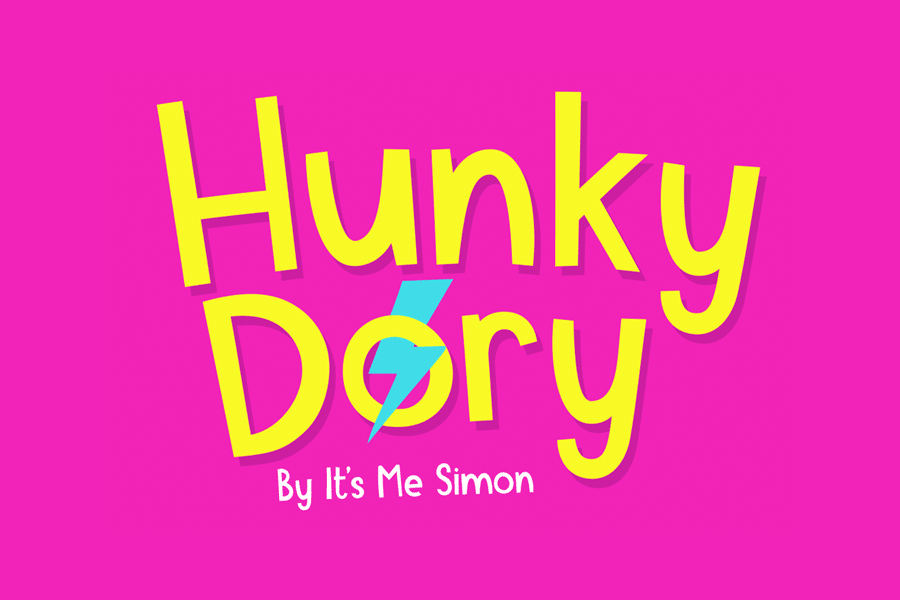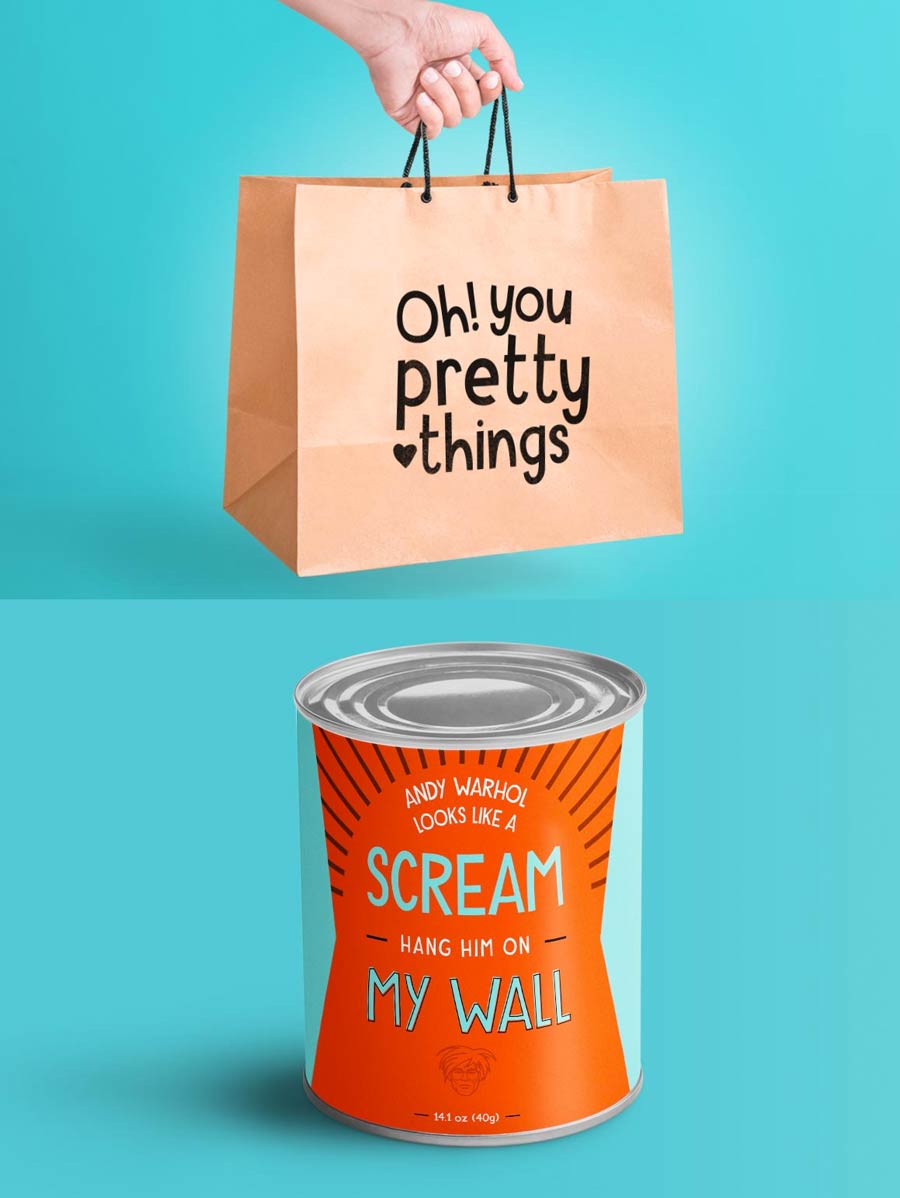
Hunky Dory is a playful free font that can bring big smiles to everybody. It’s perfect for cheerful, lighthearted, and naive designs for many types of applications including posters, packaging designs, greeting cards and more. Hunky Dory works great with vivid colors!
- Category: Playful